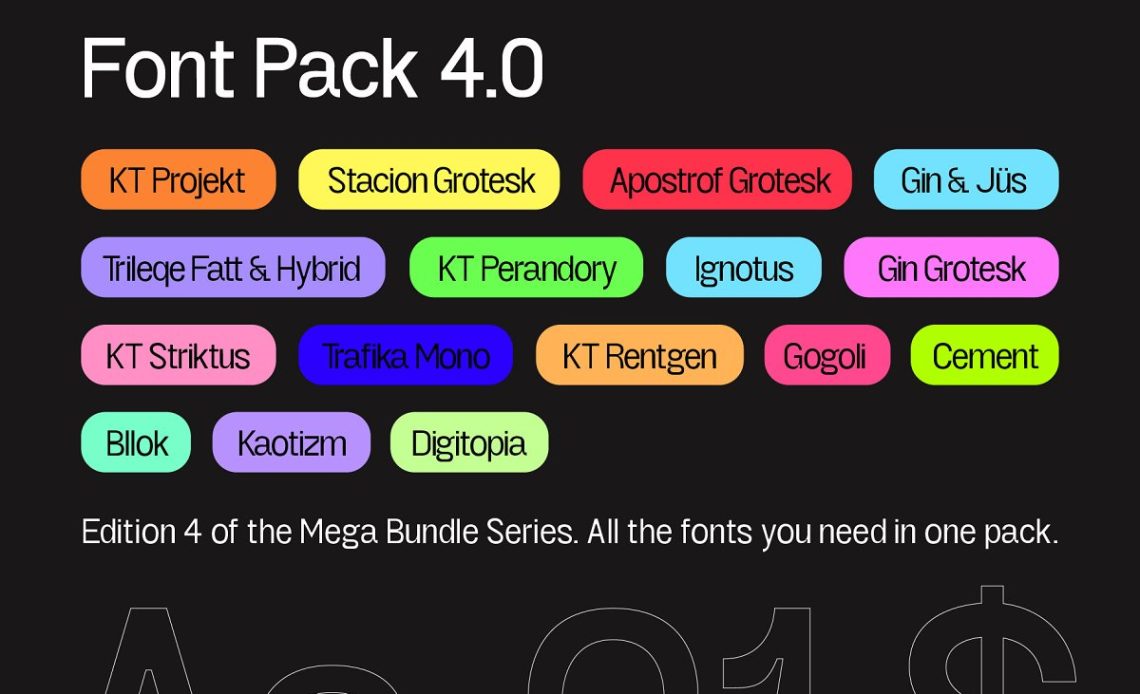
Introducing Font Pack 4.0 - the ultimate sans serif collection created by the talented Leonit Gashi. Get ready to elevate your designs with this hot new release 🔥. We've gone above and beyond to bring you an updated Mega Bundle that is truly exceptional.
In Font Pack 4.0, we've carefully curated a starter pack featuring all the essential fonts from our extensive collection. This means you'll have everything you need to create stunning designs that leave a lasting impression.
Mixed, mashed, and smashed together, these fonts strike the perfect balance for designing in harmony. Each typeface has been meticulously crafted to ensure seamless compatibility and maximum visual impact.
With Font Pack 4.0, you'll have access to an impressive range of fonts, including KT Projekt, Stacion, Apostrof, Gin & Jüs, Trileqe, Perandory, Ignotus, Gin, Striktus, Trafika, KT Rentgen, Gogoli, Cement, Bllok, Kaotizm, and Digitopia. This incredible selection guarantees that you'll find the perfect font for any project, whether it's a sleek corporate design, a bold headline, or a creative masterpiece.